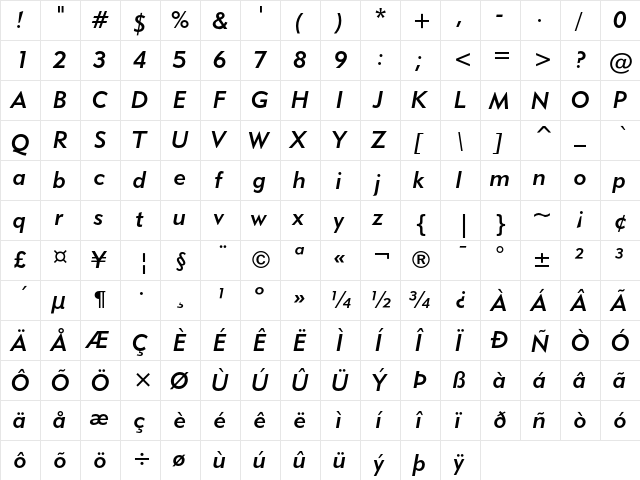
Geometric 415 Medium Italic
Design Context for Geometric 415 Typeface
Geometric 415 takes a measured approach to typography — its balanced proportions and neutral character make it a reliable workhorse for both digital and print work. The slanted form adds forward momentum and visual energy.
Pro Tip: Try Geometric 415 for annotation and caption copy alongside an upright companion — the contrast in angle creates a dynamic but ordered typographic system.